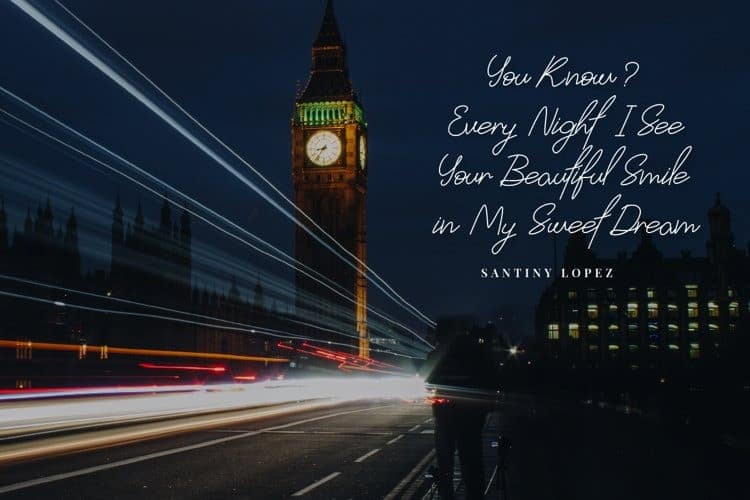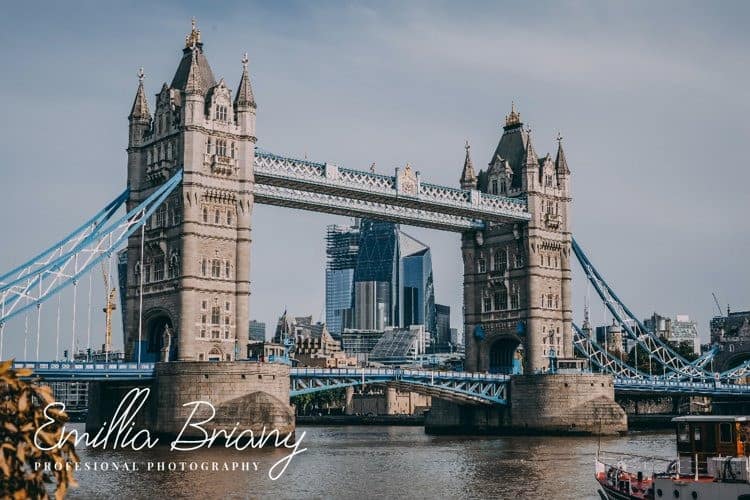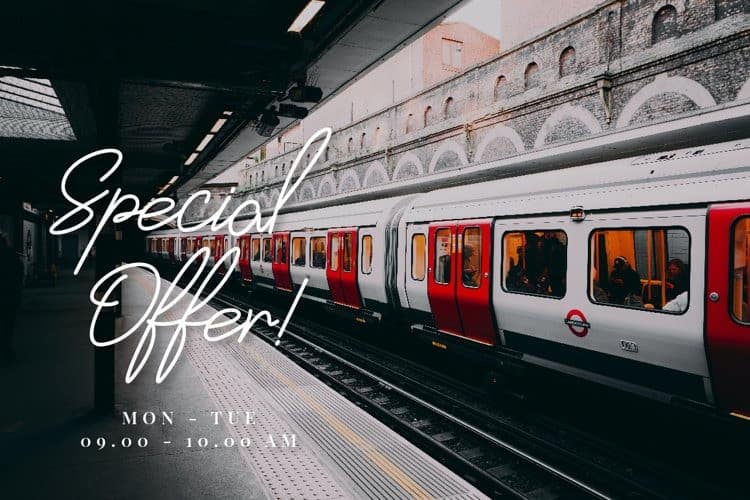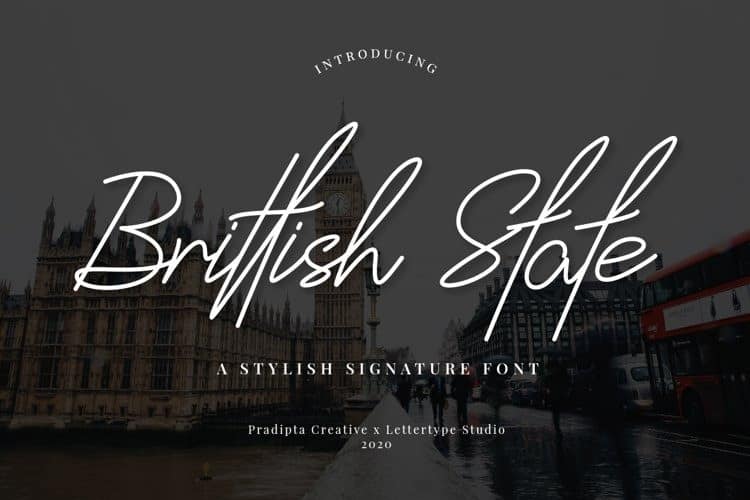
Brittish State Handwritten Font
Brittish State Handwritten Font is a stunning handmade signature script typeface with a chic casual flair. This typeface is perfect for branding projects, logo, wedding designs, social media posts, advertisements, product packaging, product designs, label, photography, watermark, invitation, stationery and any projects that need handwriting taste.